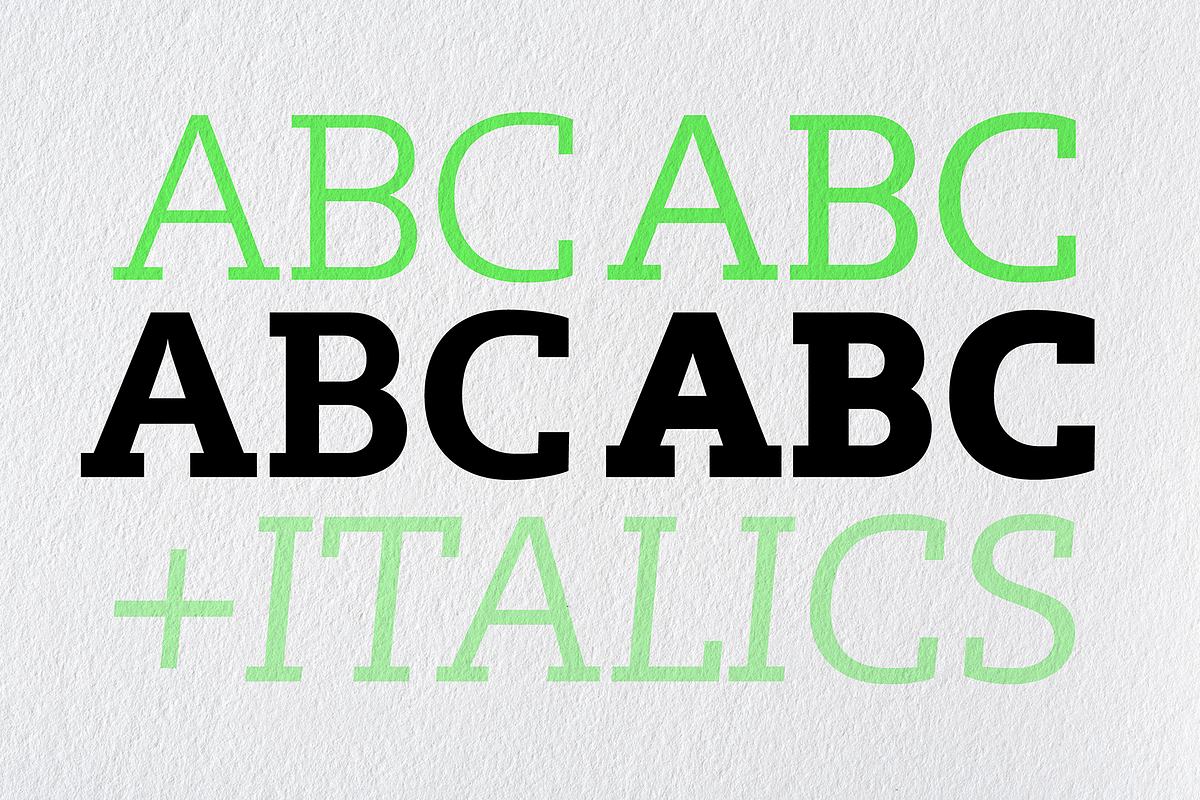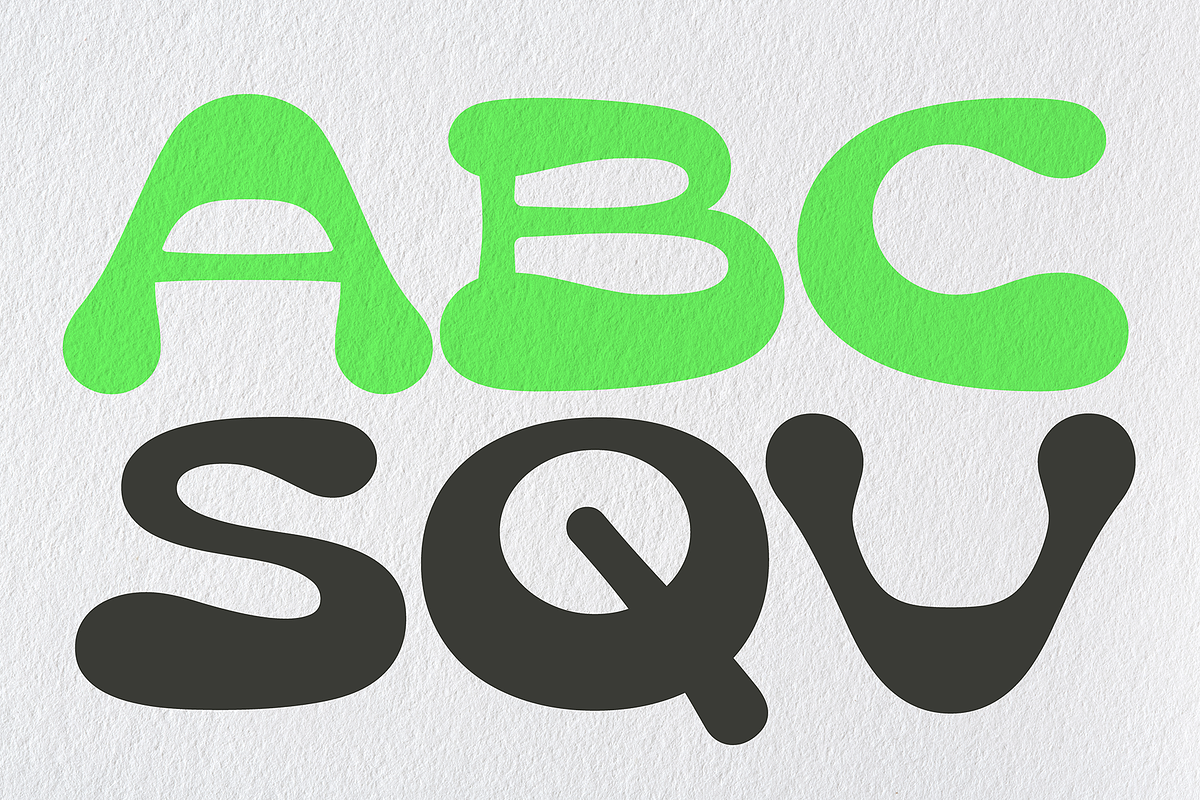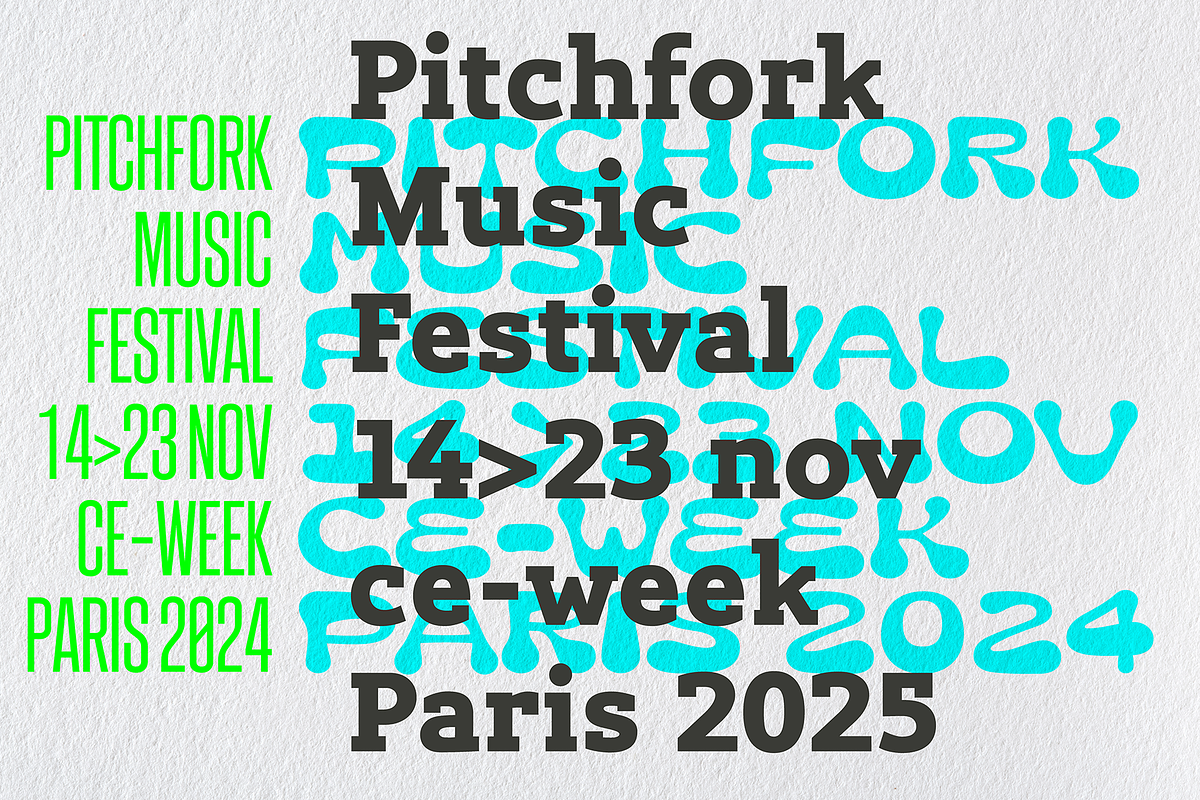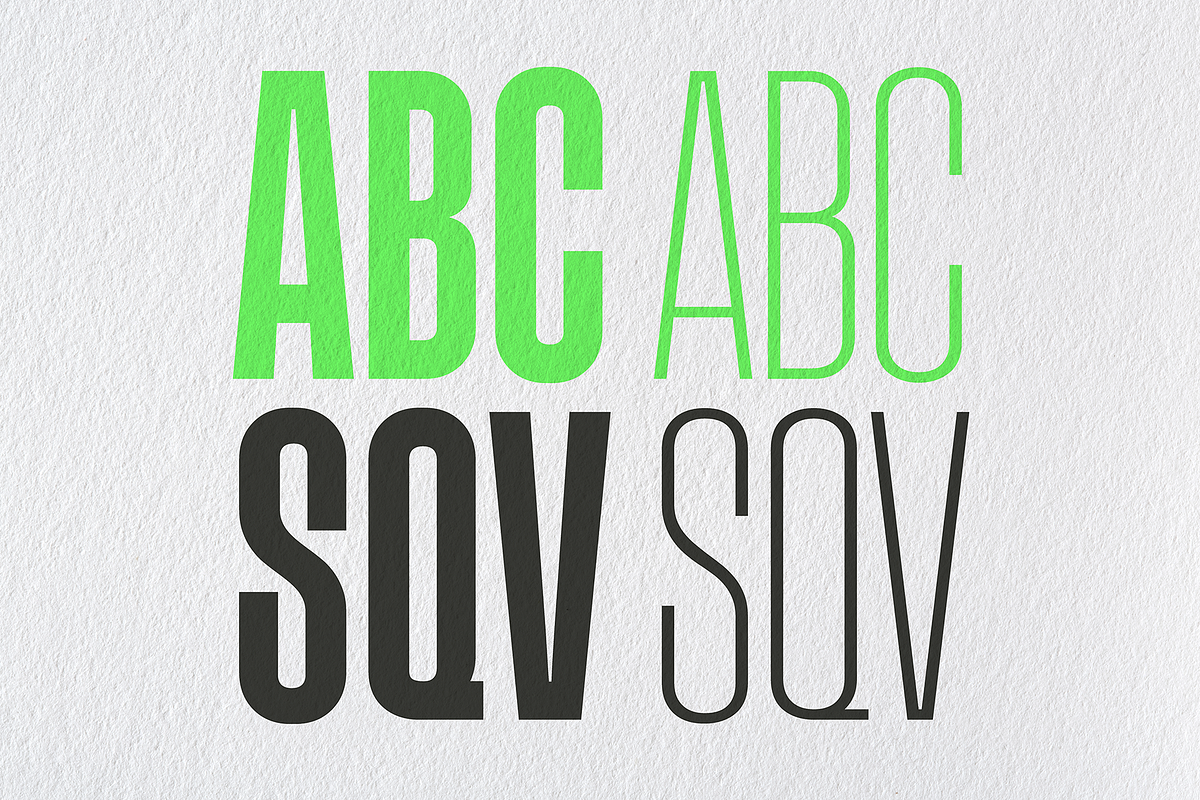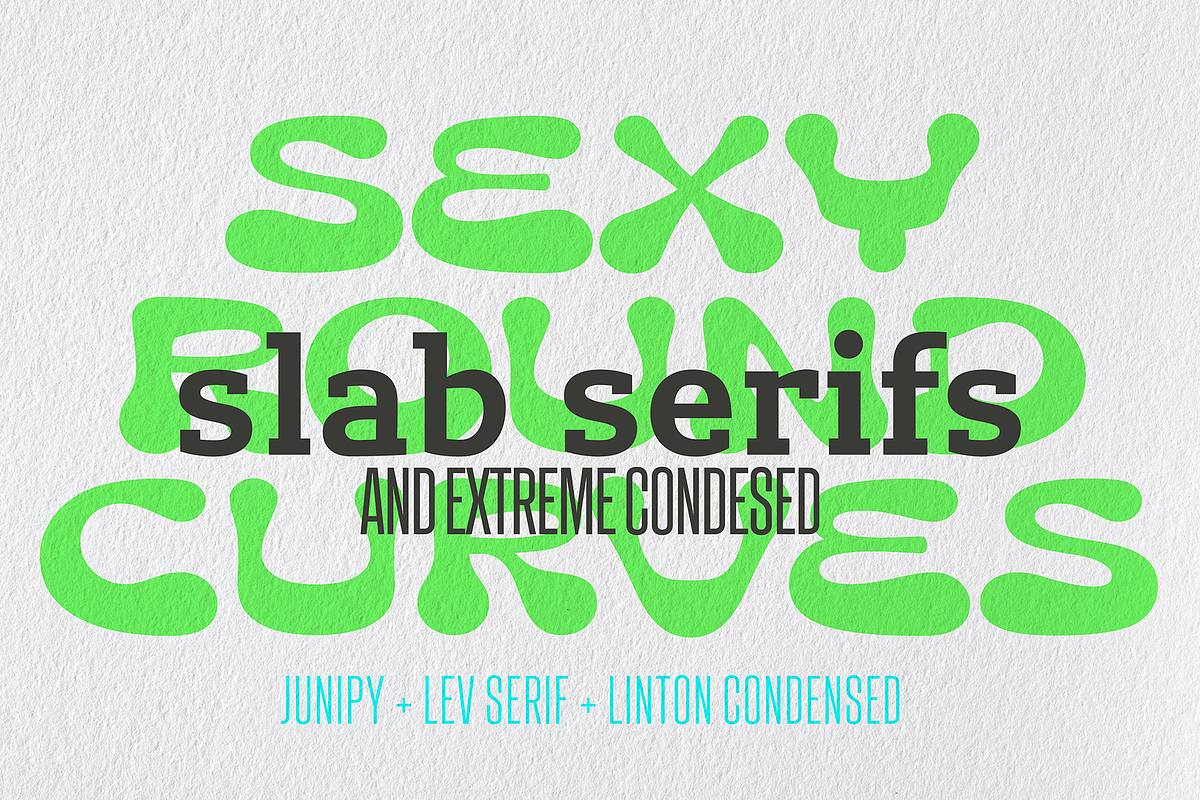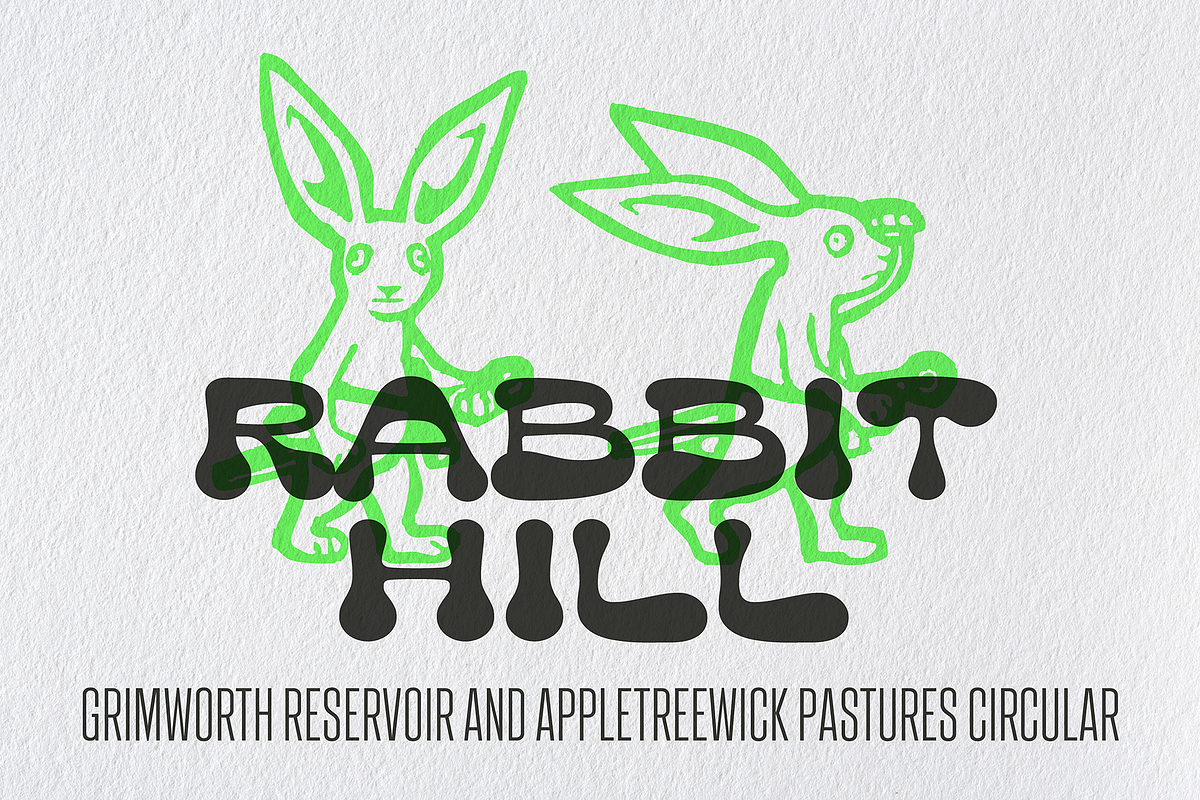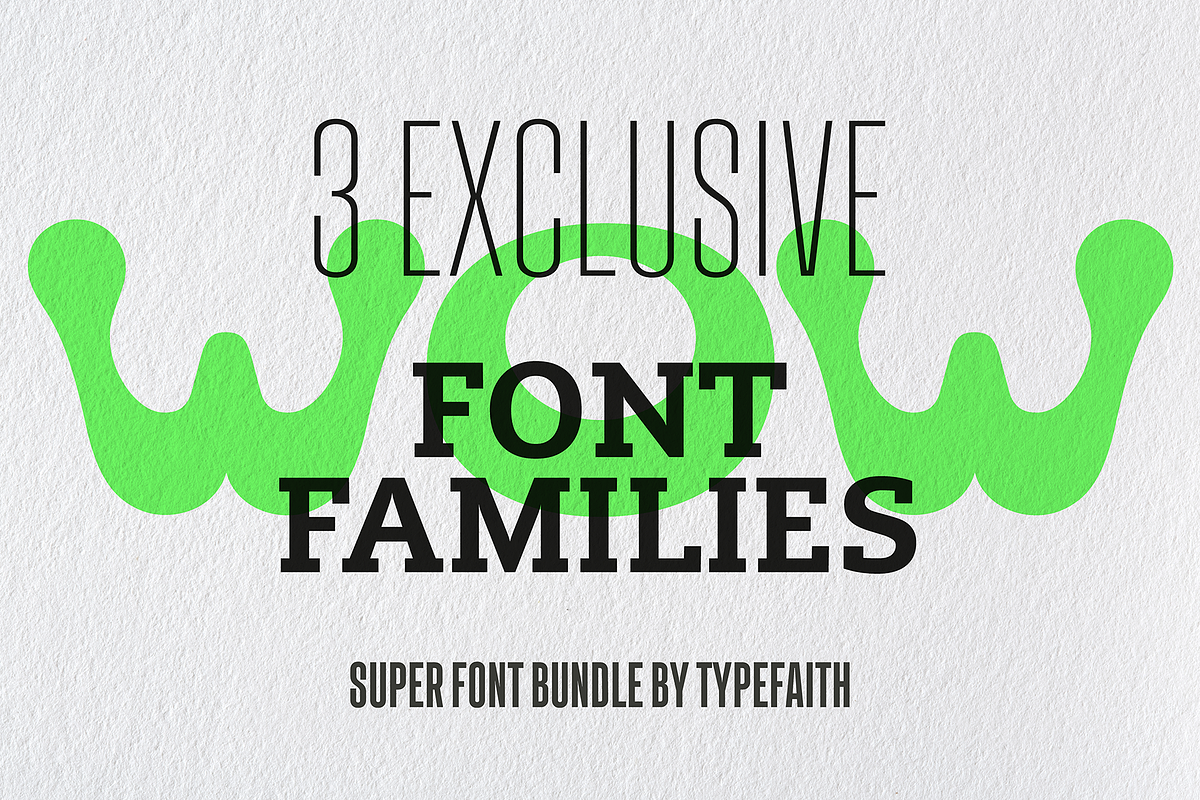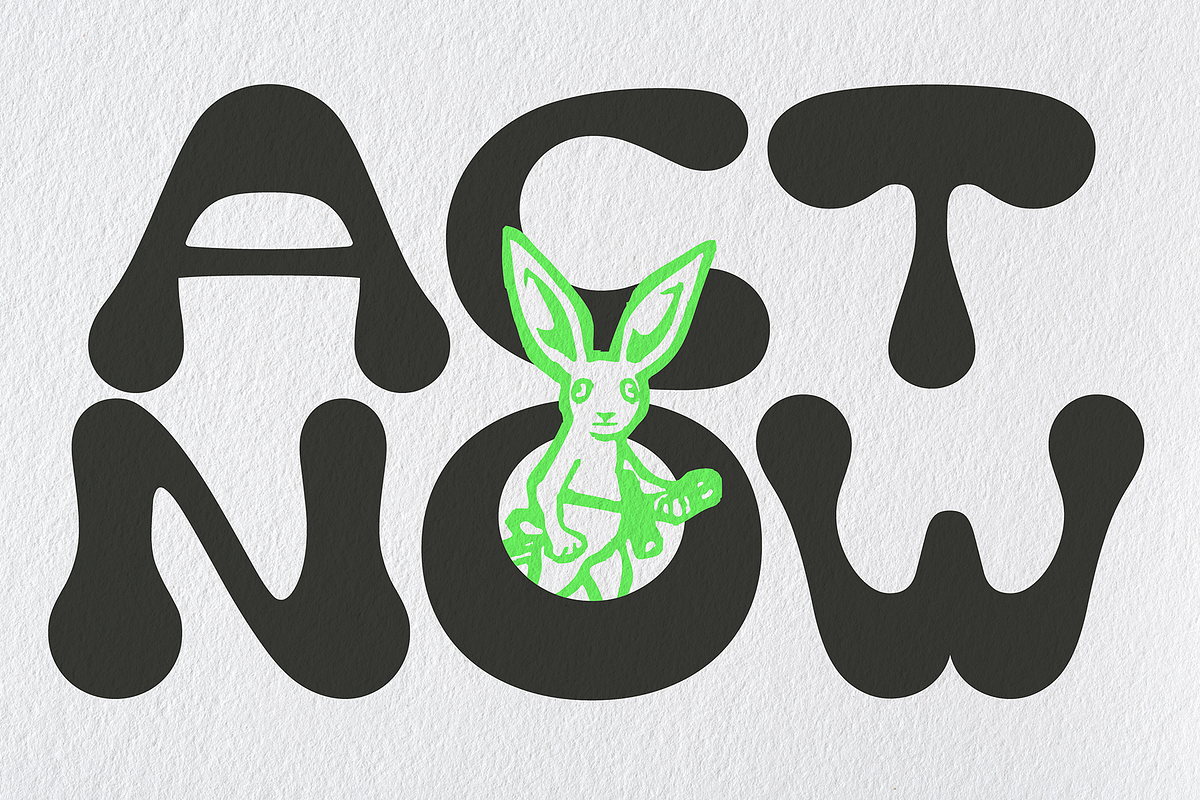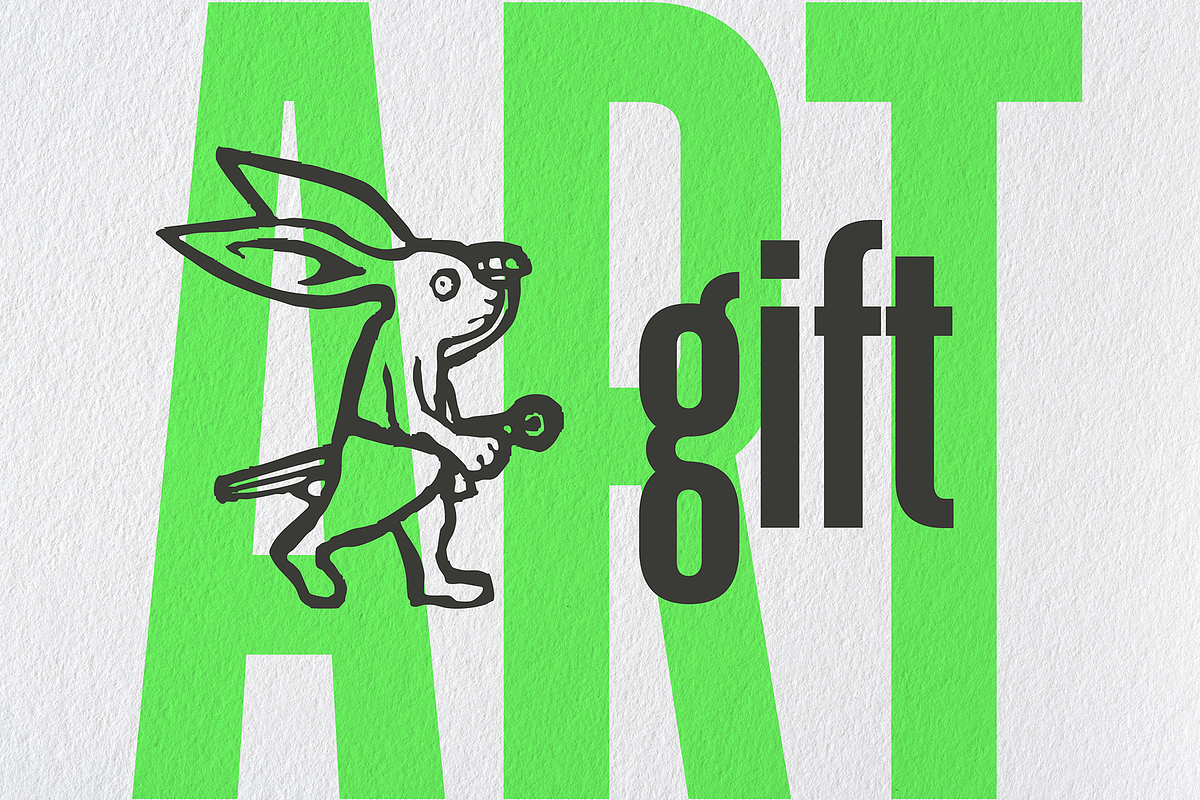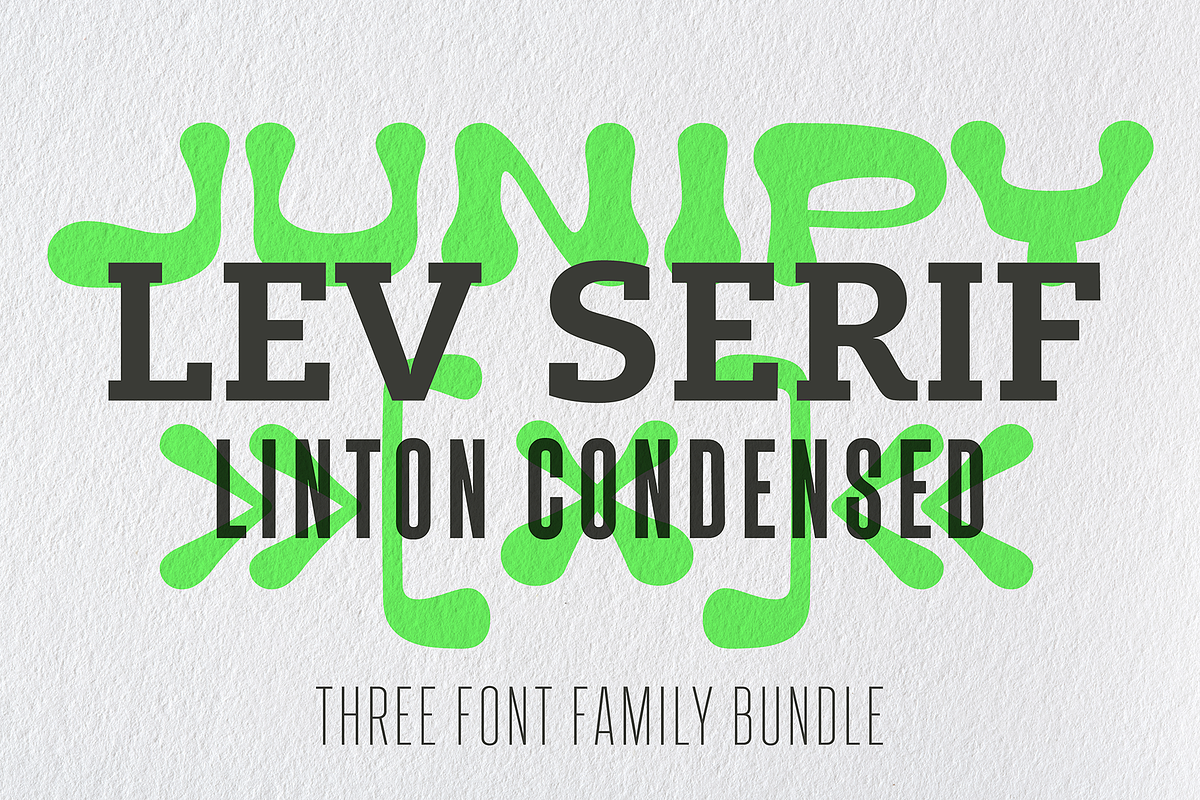
The perfect combination bundle!
The perfect combination bundle! Rectangular slab serifs and straight-angled shoulders, together with inviting curves that radiate warmth and friendliness. A very nice, basic, narrow font for solving practical matters. What more do you want?
Junipy is a lovely and playful font for posters and invitations. Lev Serif is a slab serif typeface. The rectangular serifs with straight-angled shoulders and contrasting links to the curves and loops give this font its distinctive character. Lev Serif comes in a large family: many weights, Light, Regular, Bold, Extra Bold and Black. Linton Condensed – the ultimate font that you need! This typeface strikes the perfect balance between bold and elegant light, making it a must-have for your design projects! With three weights — bold, regular, light and thin — it’s incredibly versatile and guaranteed to deliver a powerful message, whether you're crafting headlines or casual text. Linton is not just practical and straightforward; it’s a timeless classic that always rises to the occasion, whether it’s taking center stage or playing a vital supporting role. Transform your projects with Linton and make your designs truly unforgettable! You can’t afford to miss this! It's a stunning attention-grabber!